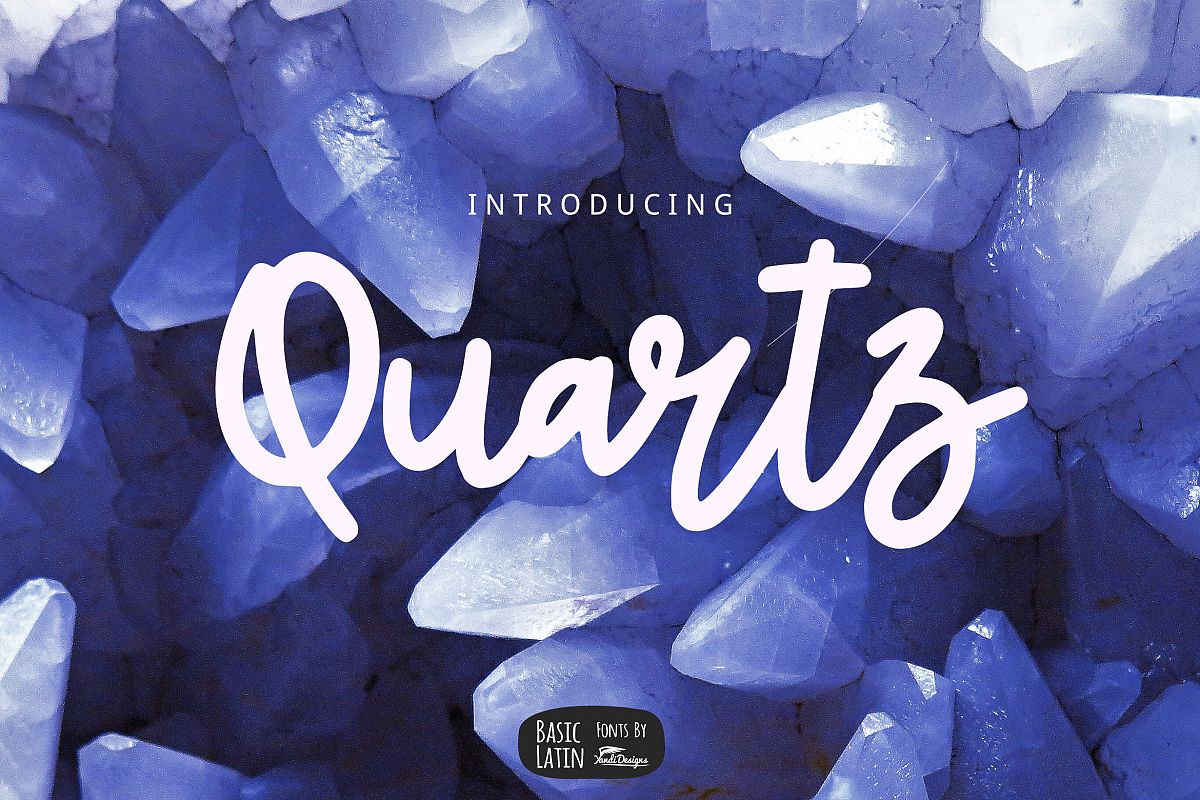
Quartz Bold Line Script
Quartz Regular
Quartz Script Font
Simple bold line script  font , suitable for many project , quotes, logo , doodle, heading , title etc.